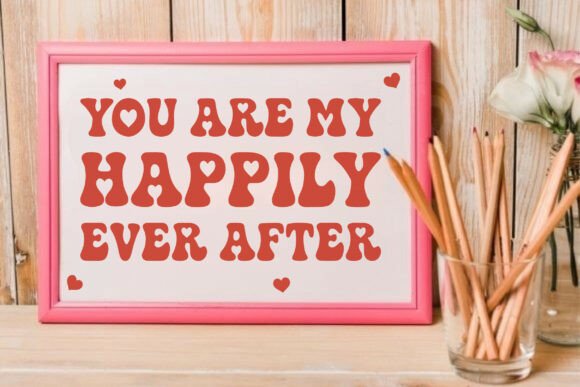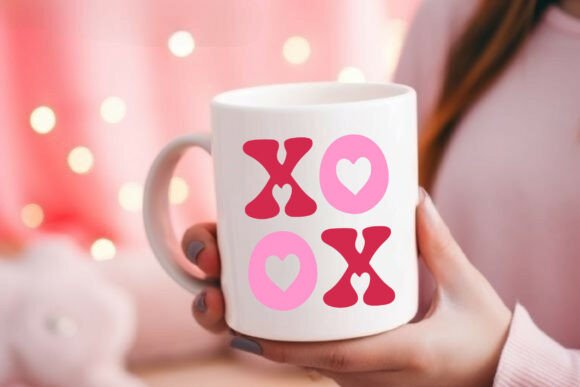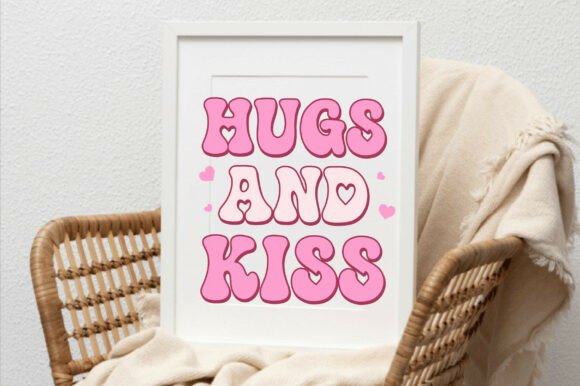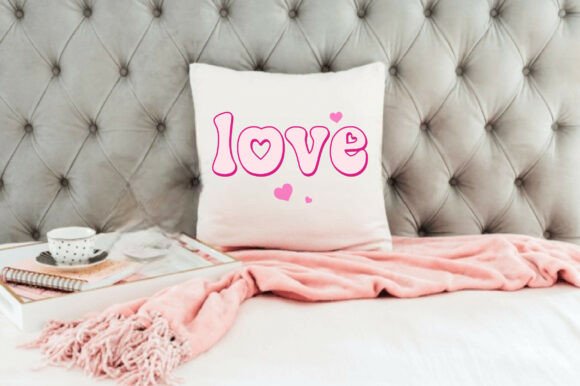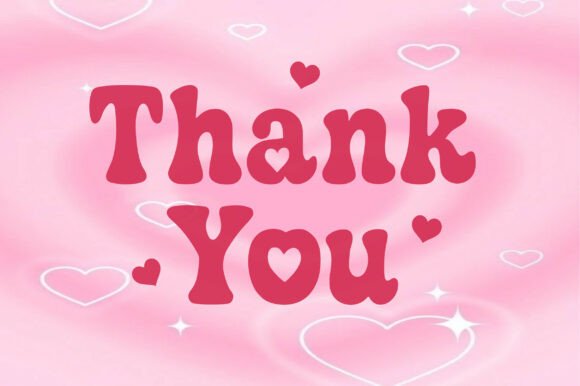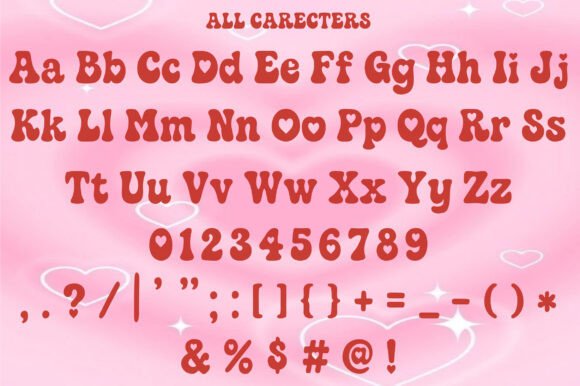
Introduction to Funky Heart Font
Bring your designs to life with Funky Heart, a vibrant retro groovy font perfect for Valentine’s Day projects.
This fun and playful typeface features bold curves, smooth lines, and a touch of heart-inspired charm, making it ideal for greeting cards, posters, t-shirts, social media graphics, and more Its nostalgic retro vibe adds personality and warmth to any design, while keeping your message stylish and eye-catching.